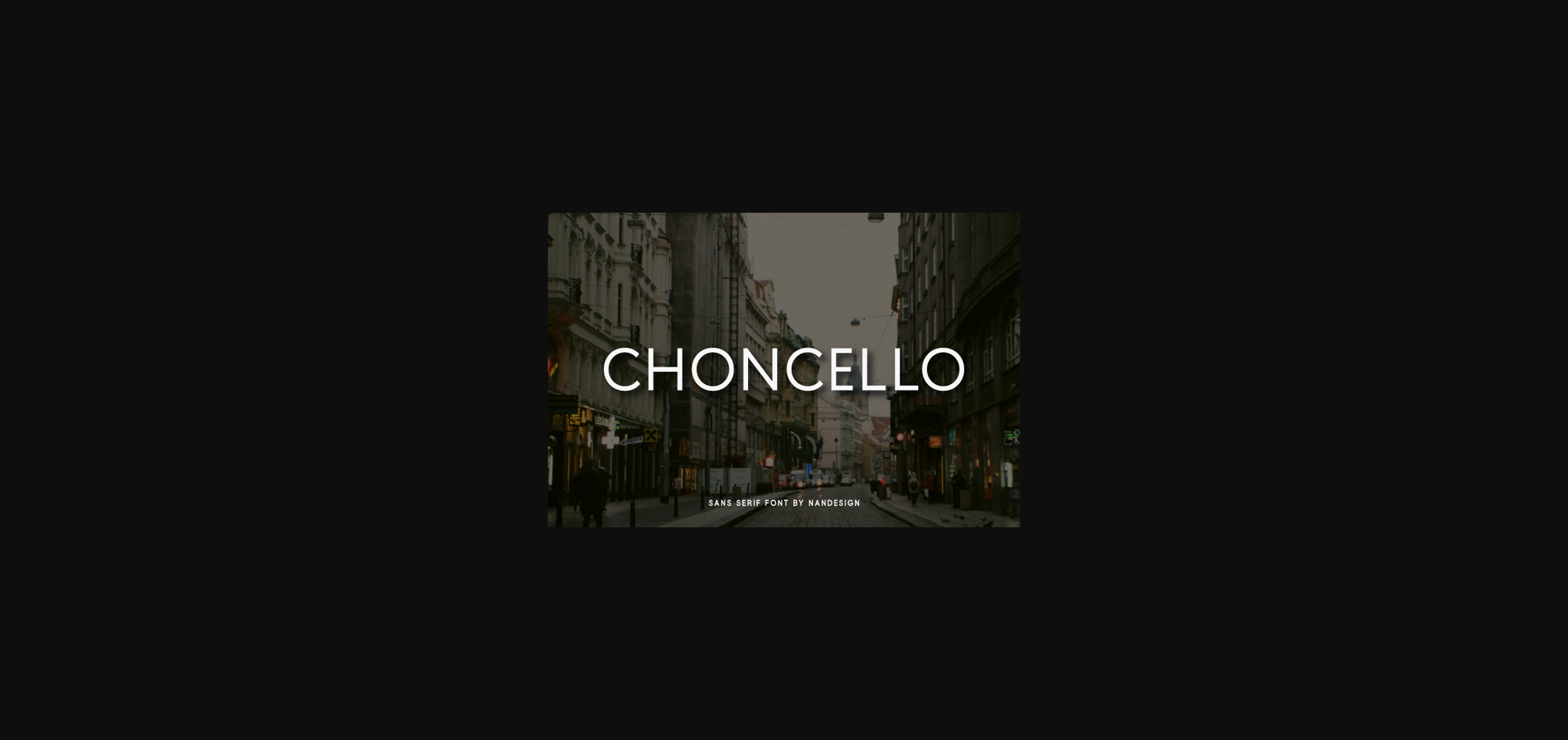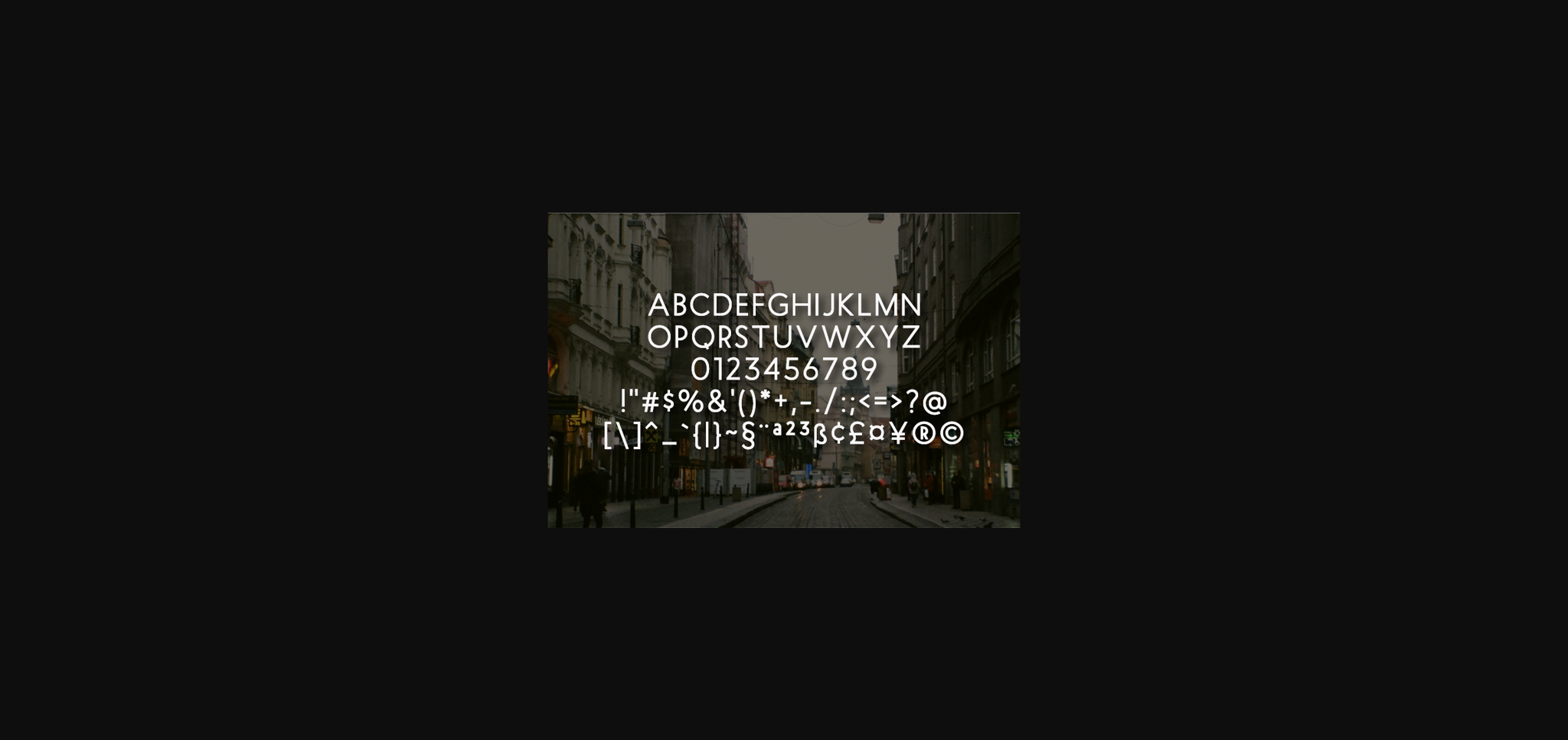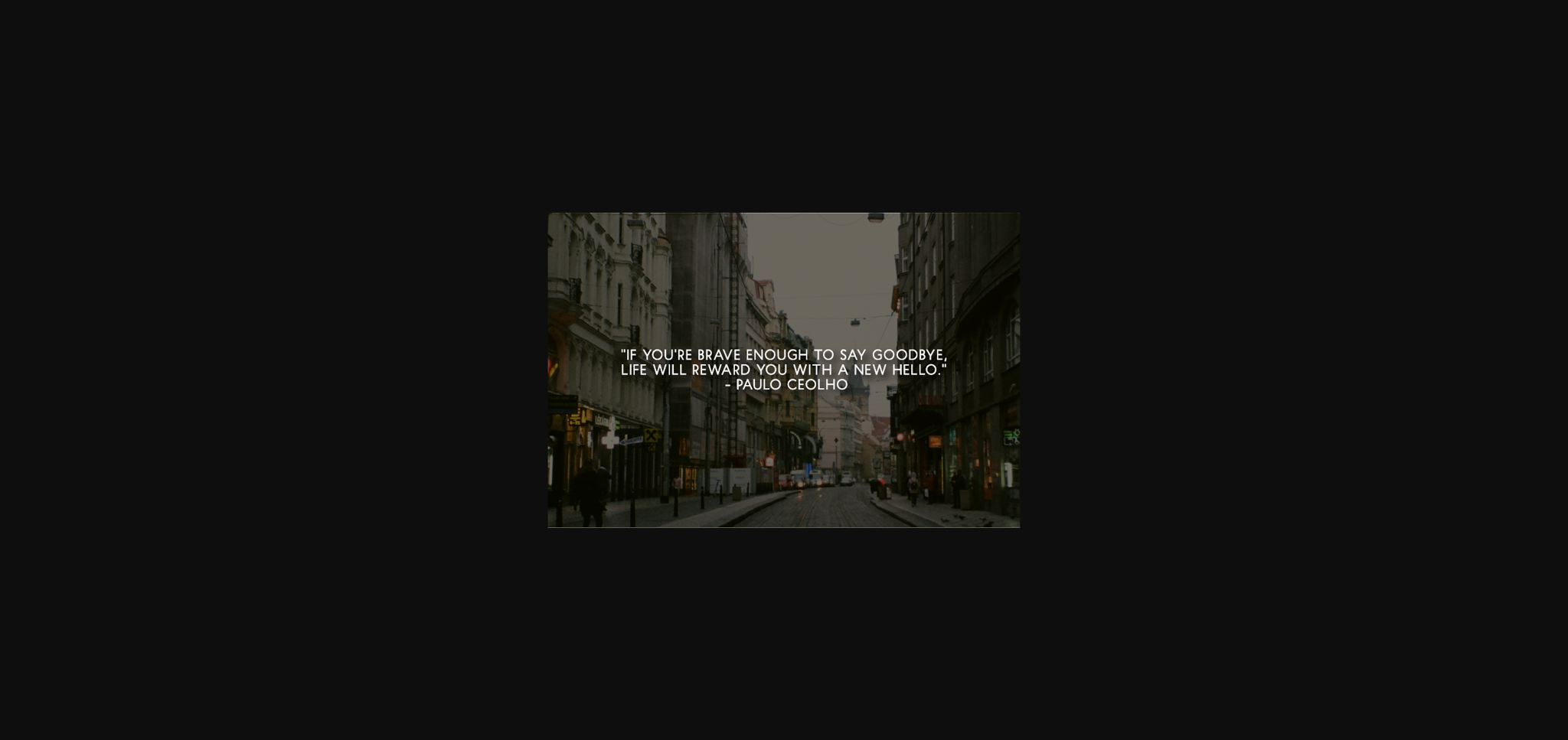
Choncello Font
About Choncello Font
Choncello is a minimal and neat sans serif font. It can easily be matched to an incredibly large set of projects, so add it to your creative ideas and notice how it makes them stand out!